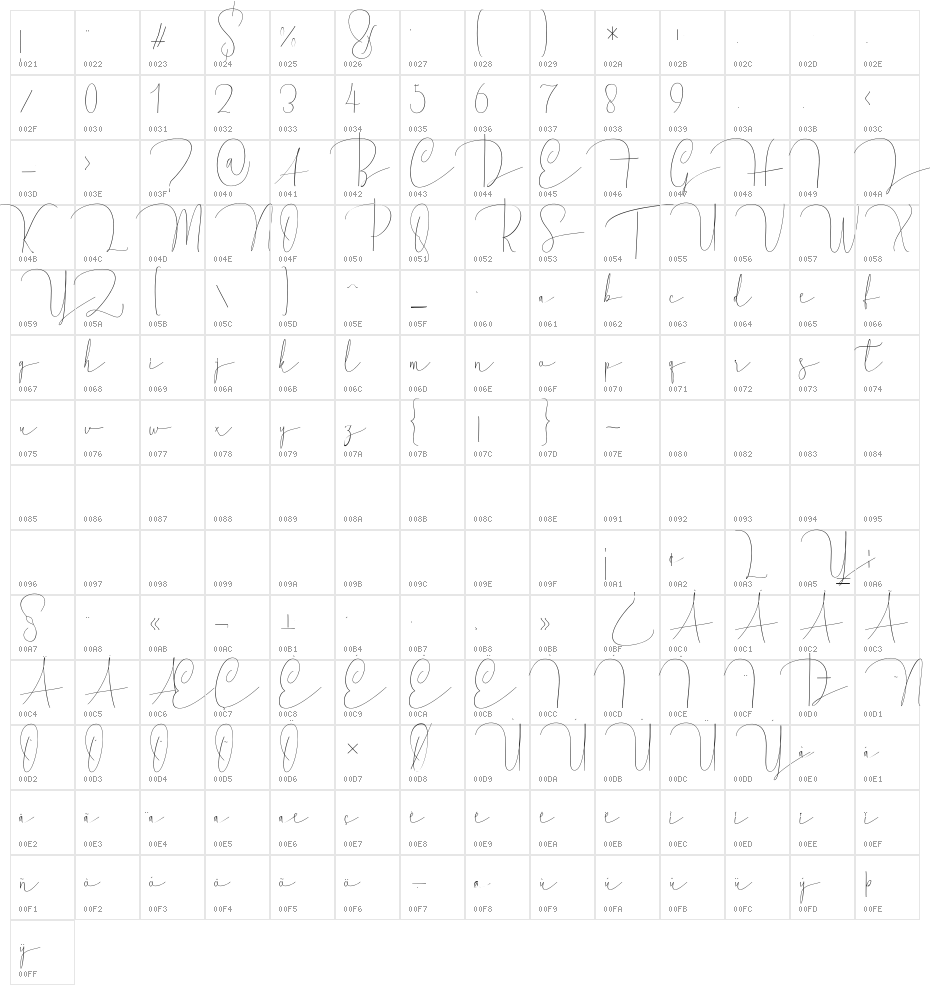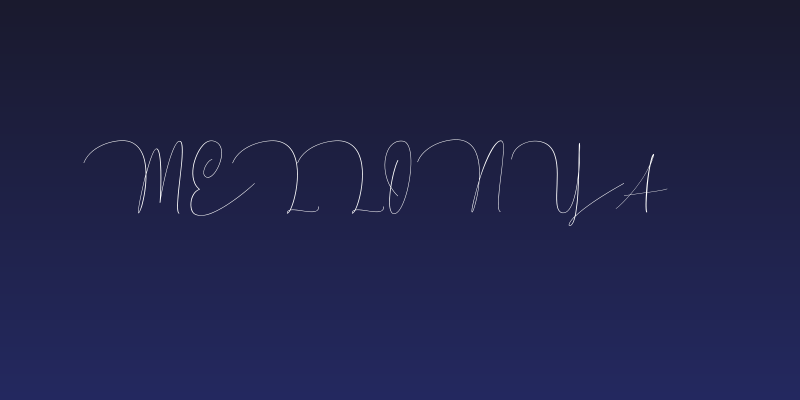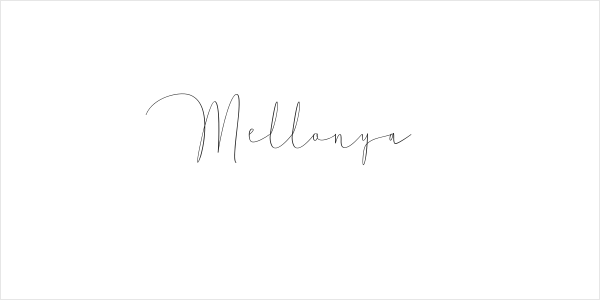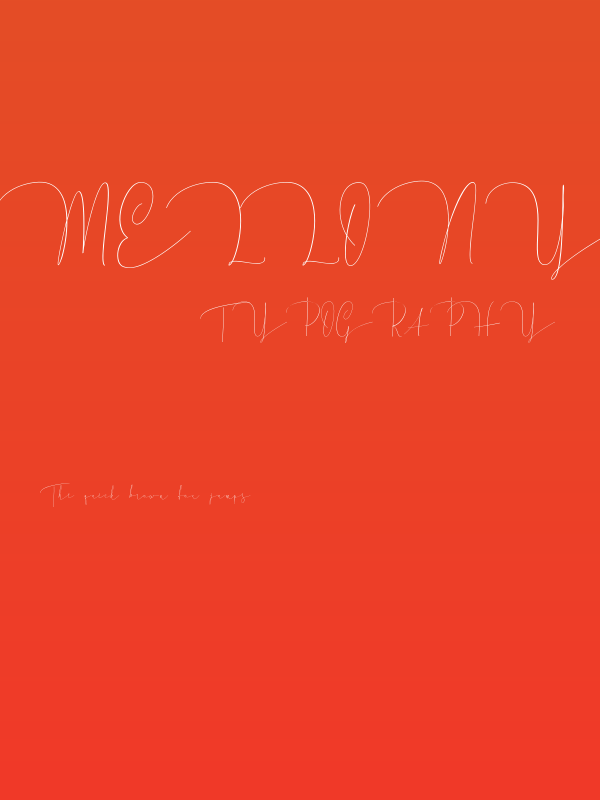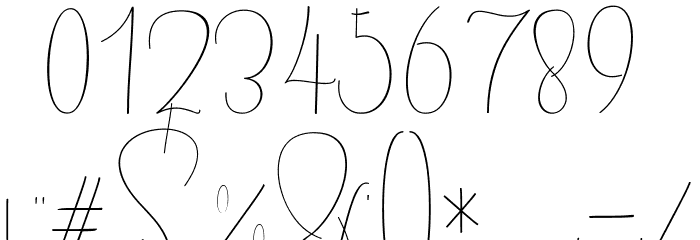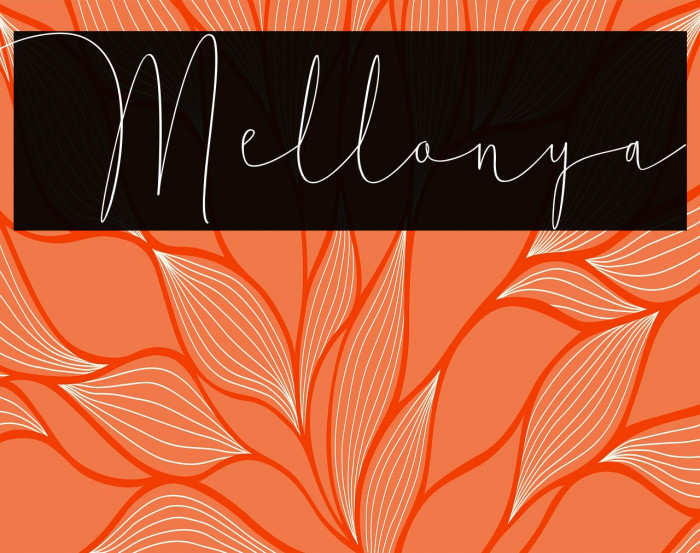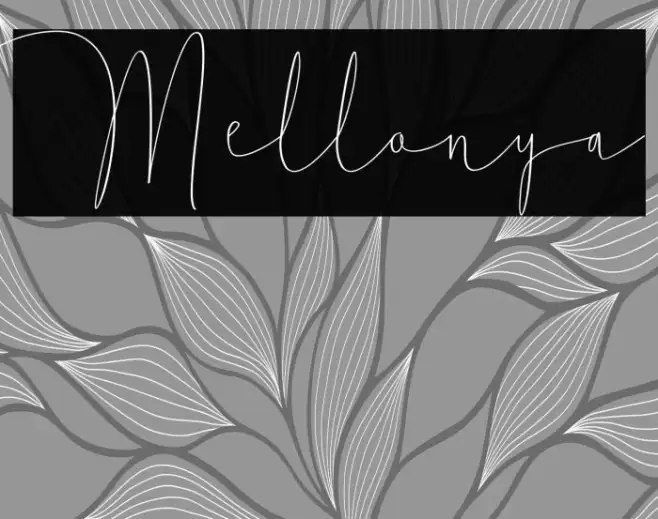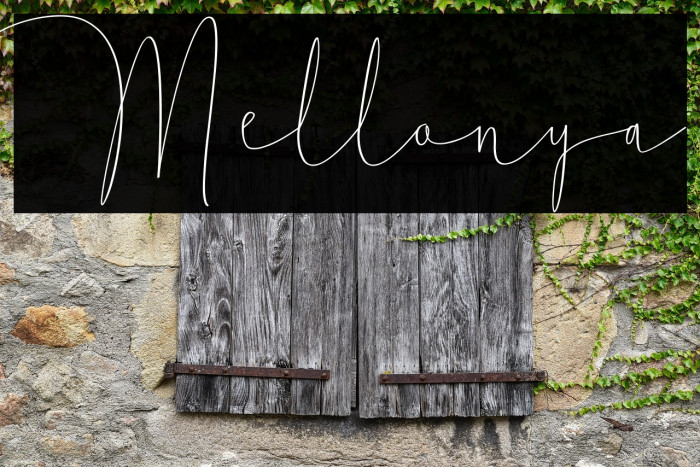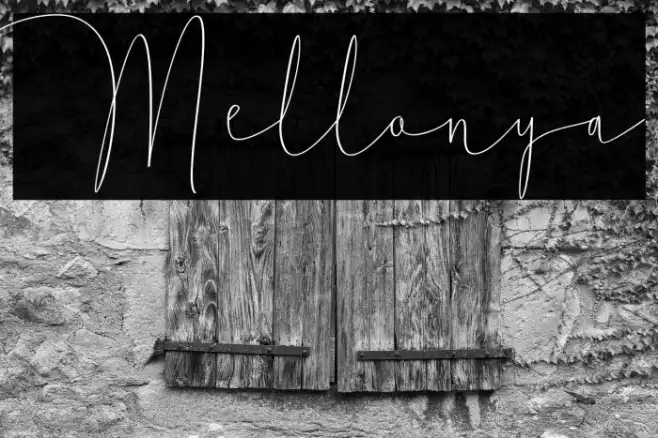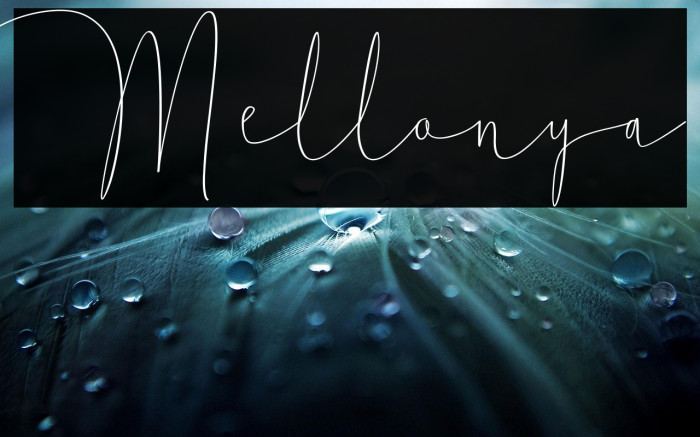
Mellonya Font
Mellonya Description
This elegant script font features a delicate and flowing style, characterized by its thin, graceful strokes and fluid connections between letters. The uppercase letters exhibit a sophisticated, airy quality with gentle curves and loops, while the lowercase letters maintain a consistent, smooth flow. The numerals are slender and harmonize well with the overall aesthetic. Special characters are thoughtfully designed, complementing the script's refined appearance. This font exudes a sense of elegance and sophistication, making it ideal for projects that require a touch of class and style.